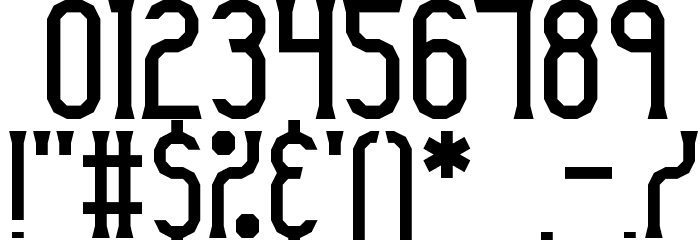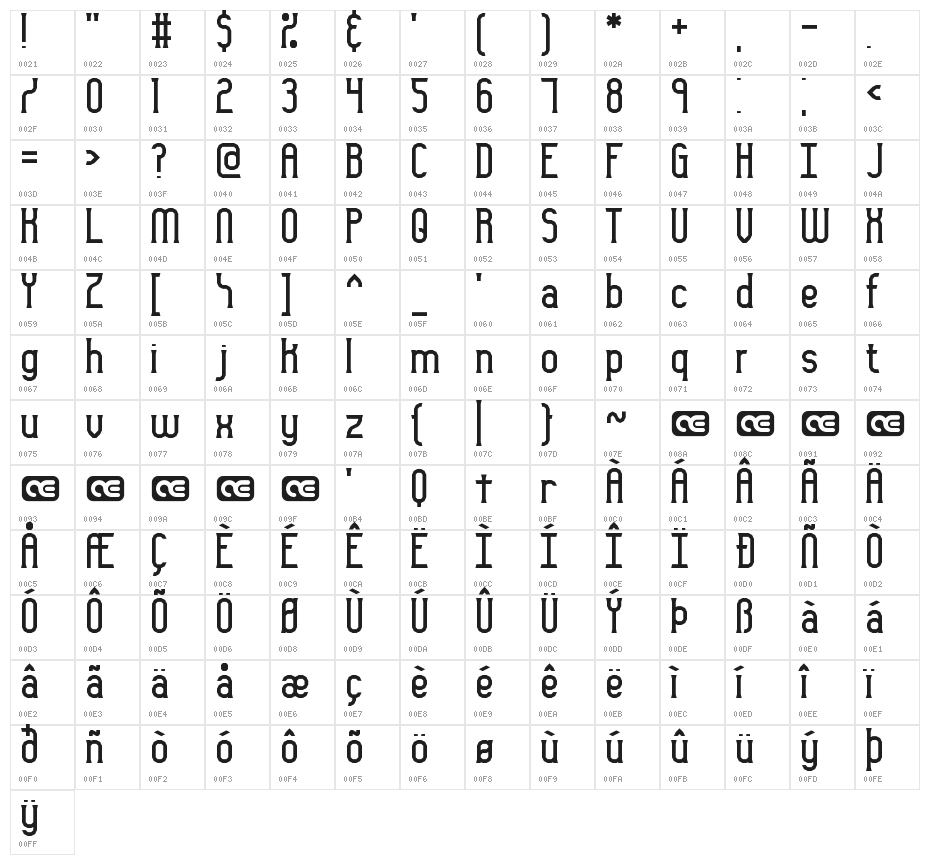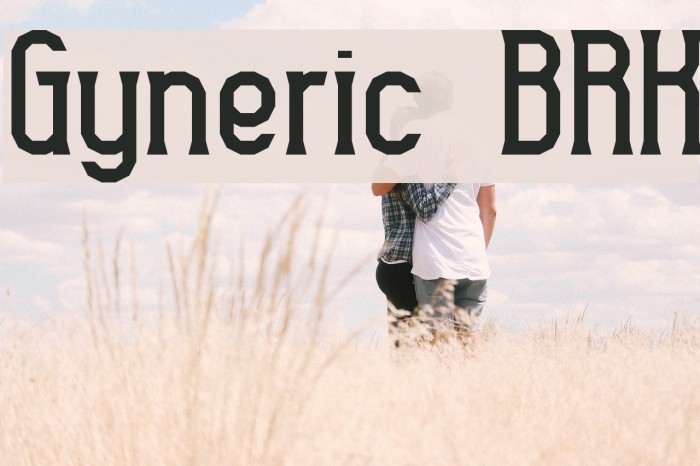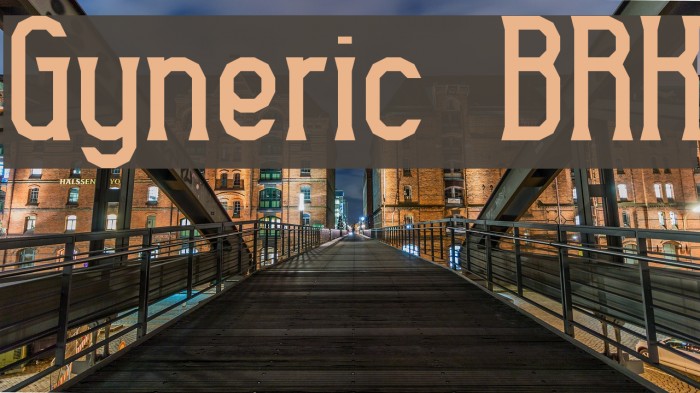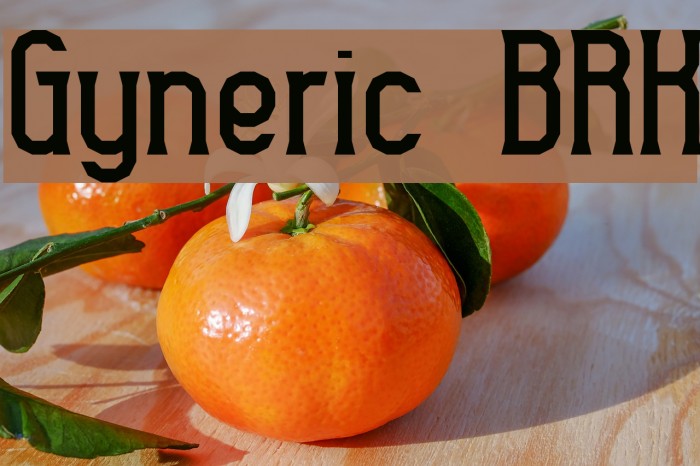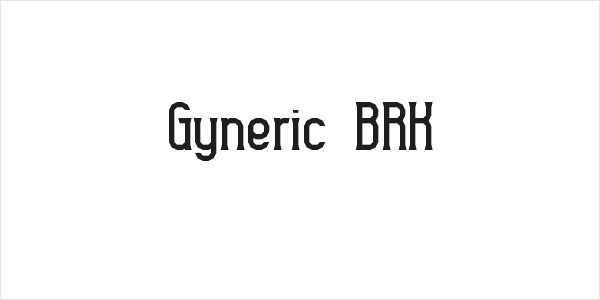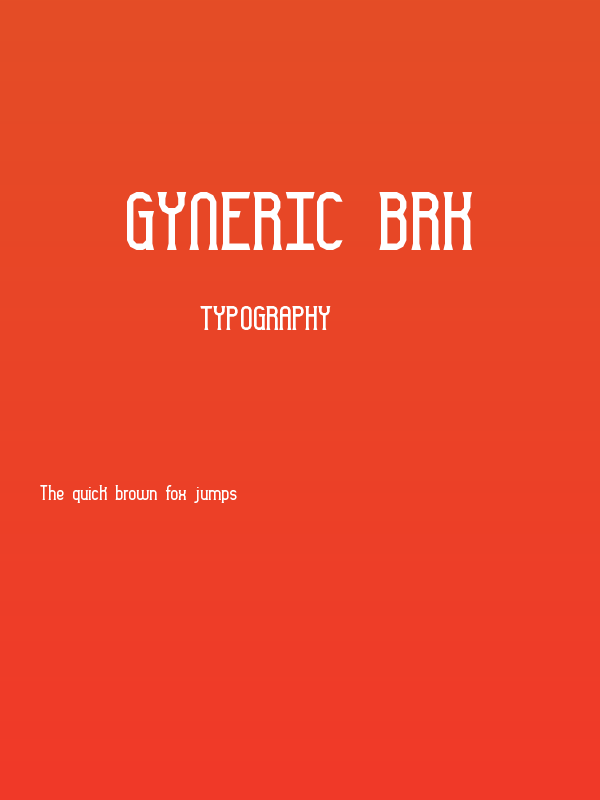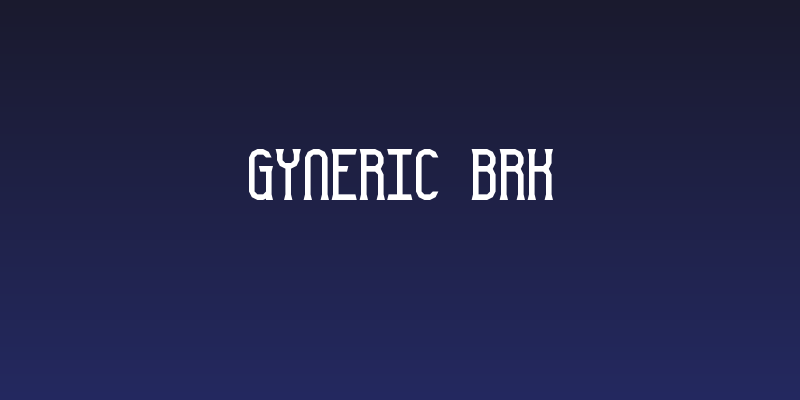
Gyneric BRK Font
Gyneric BRK Description
This font features a distinct, geometric style with a modern twist. The characters are constructed with straight lines and sharp angles, giving it a futuristic and technical appearance. The uppercase letters are tall and narrow, while the lowercase letters maintain a consistent height that complements the uppercase. The numerals are bold and easily distinguishable, making them suitable for digital displays. Special characters are designed with the same geometric precision, ensuring uniformity across the font. The overall look is clean and structured, making it ideal for projects that require a contemporary and tech-savvy aesthetic.
| Use Case | Logos, Headlines, Digital displays |
| Proposed Projects | Ideal for tech branding, digital interfaces, futuristic designs, and modern advertising. |